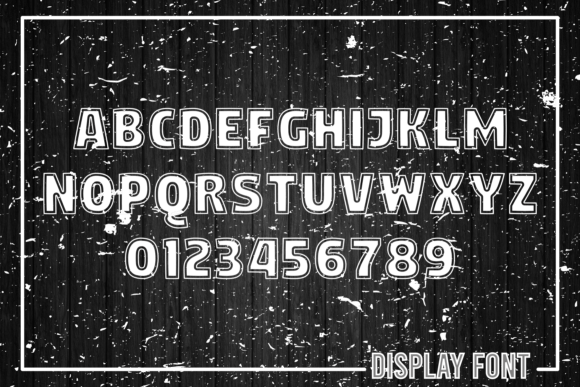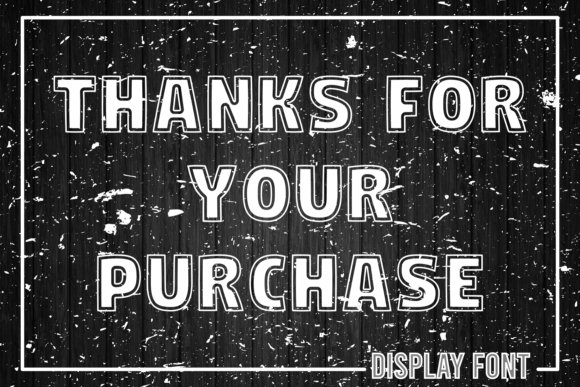
Unleash Your Creativity with Grungy III Font: A Timeless Typeface for Bold Designs
Are you tired of using the same old fonts for your designs? Do you want to add a touch of personality and edge to your projects? Look no further than the Grungy III Font, a bold and versatile typeface that’s perfect for making a statement. In this article, we’ll explore the features and benefits of Grungy III Font, and show you how it can elevate your designs to the next level.
The Power of Bold Typography
Bold typography is a powerful design element that can instantly grab attention and convey confidence. Whether you’re designing a logo, poster, or website, a bold font can help you make a lasting impression on your audience. Grungy III Font is a masterclass in bold typography, with strong, confident strokes that demand attention.
What is Grungy III Font?
Grungy III Font is a timeless typeface that’s been crafted to bring a touch of grunge-inspired style to your designs. With its rugged, distressed texture and bold lines, this font is perfect for adding a bit of edge to your projects. But don’t let its grungy appearance fool you – Grungy III Font is incredibly versatile, and can be used for a wide range of design applications.
Key Features of Grungy III Font
- Bold and confident strokes: Grungy III Font features strong, bold lines that make a statement.
- Distressed texture: The font’s rugged, distressed texture adds a touch of grunge-inspired style to your designs.
- Versatile: Grungy III Font can be used for a wide range of design applications, from headlines and posters to logos and websites.
- Easy to read: Despite its bold and distressed texture, Grungy III Font is incredibly easy to read, making it perfect for use in body text and other applications.
How to Use Grungy III Font in Your Designs
Grungy III Font is incredibly easy to use, and can be incorporated into your designs in a variety of ways. Here are a few ideas to get you started:
- Headlines and titles: Use Grungy III Font to add a bold and attention-grabbing headline to your posters, flyers, and other marketing materials.
- Logos and branding: Grungy III Font is perfect for creating bold and memorable logos that will help your brand stand out.
- Web design: Use Grungy III Font to add a touch of personality and edge to your website’s typography.
Benefits of Using Grungy III Font
So why should you choose Grungy III Font for your designs? Here are just a few benefits of using this powerful typeface:
- Adds edge and personality: Grungy III Font can help you add a touch of personality and edge to your designs.
- Instantly grabs attention: The font’s bold and confident strokes make it perfect for grabbing attention and conveying confidence.
- Versatile: Grungy III Font can be used for a wide range of design applications, making it a great addition to your font library.
If you’re looking for a bold and versatile typeface that can help you elevate your designs, look no further than Grungy III Font. With its strong, confident strokes and distressed texture, this font is perfect for making a statement and adding a touch of personality to your projects. Whether you’re a designer, craft, or DIY enthusiast, Grungy III Font is a great choice for anyone looking to add a bit of edge to their designs.